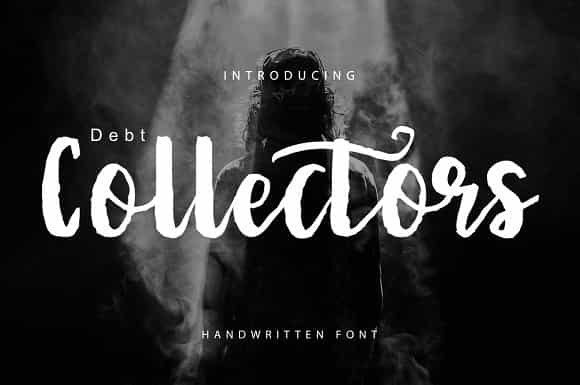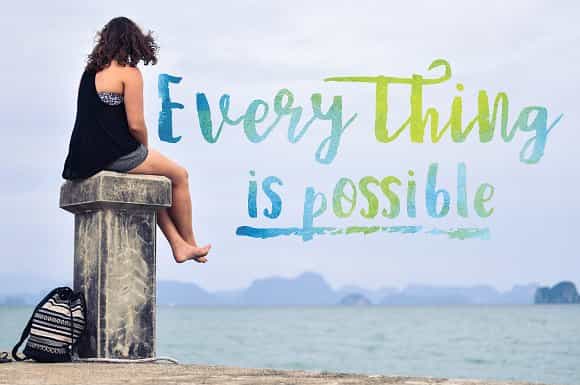
Debt Collectors has regular Ligatures – let us give the font a more natural feel. This also includes adding multilingual support with accented characters for international users., Debt Collectors pair perfectly with Signature, Handwritten, Script or Sans. This fonts are perfect for your design, logo, label, SVG design, photography, watermark, music, etc.